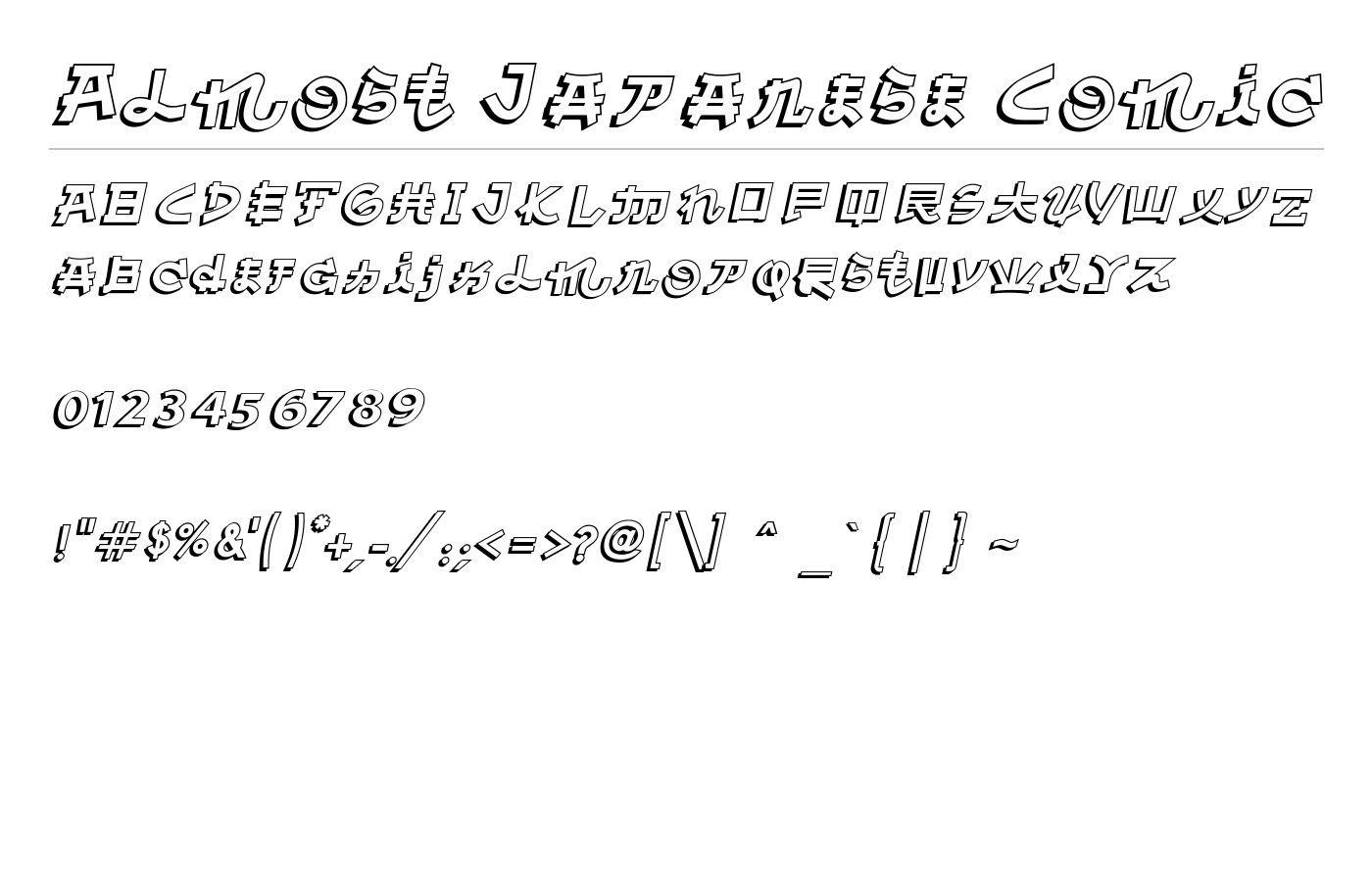
Almost Japanese Comic Font is a playful, bold sans serif with a fun, slightly condensed style that blends sharp, angular edges with curved strokes, giving it a dynamic, comic-inspired look. Its unique letterforms and subtle 3D shadow effect make it ideal for lively headlines, posters, and branding that seeks a youthful, energetic vibe. This font works best in creative, informal contexts where attention-grabbing and a sense of fun are key.
Almost Japanese Comic Font
About Almost Japanese Comic Font
| Font family | Almost Japanese Comic Font |
| Designer | Galdino Otten 55 83 99806 7774 |